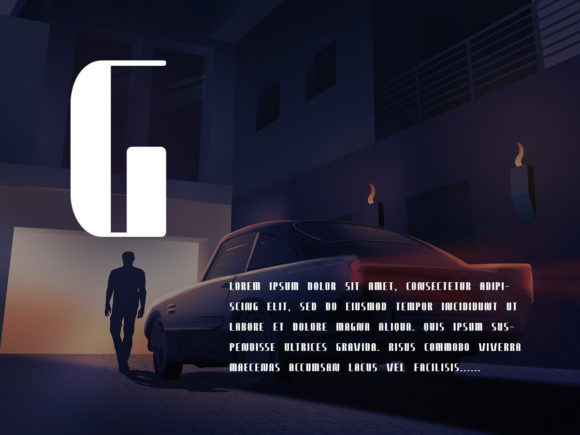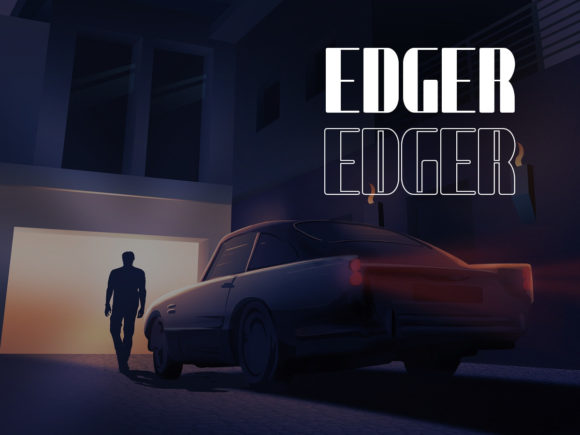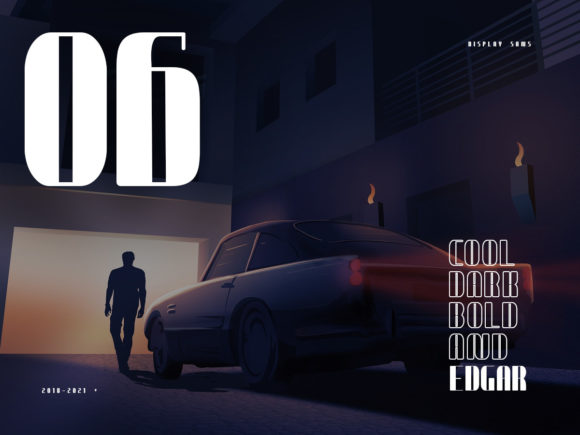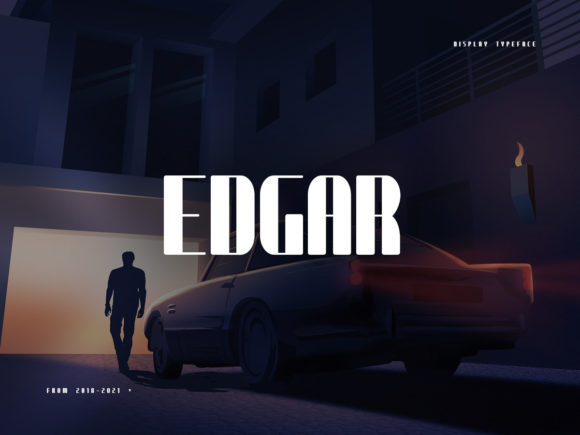
Introducing Edger Font: Elevate Your Creations with a Modern and Stylish Display Font
Are you a designer or crafter looking for a font that can take your creations to the next level? Look no further than Edger Font, a modern and stylish display font that’s perfect for making a statement. With its chunky and prominent letters, Edger Font is ready to elevate your designs and set them apart from the rest.
What is Edger Font?
Edger Font is a display font that’s designed to make a bold impression. Its chunky and prominent letters are perfect for creating eye-catching headlines, titles, and graphics. Whether you’re working on a logo, brochure, or social media post, Edger Font is the perfect choice for adding a touch of modern style and sophistication.
Key Features of Edger Font
- Chunky and Prominent Letters: Edger Font features chunky and prominent letters that are designed to grab attention.
- Modern and Stylish: With its sleek and contemporary design, Edger Font is perfect for creating modern and stylish graphics.
- High-Impact: Edger Font is designed to make a bold impression, making it perfect for creating high-impact headlines and titles.
- Versatile: Edger Font can be used for a wide range of design projects, from logos and brochures to social media posts and more.
Benefits of Using Edger Font
So why choose Edger Font for your design projects? Here are just a few benefits of using this amazing font:
- Adds a Touch of Modern Style: Edger Font adds a touch of modern style and sophistication to any design project.
- Grabs Attention: With its chunky and prominent letters, Edger Font is designed to grab attention and make a bold impression.
- Increases Readability: Edger Font is easy to read, even at large sizes, making it perfect for creating high-impact headlines and titles.
- Versatile: Edger Font can be used for a wide range of design projects, from logos and brochures to social media posts and more.
| Font Name | Edger Font |
| Author | Design Stag |
In conclusion, Edger Font is a modern and stylish display font that’s perfect for designers and crafters looking to elevate their creations. With its chunky and prominent letters, Edger Font is ready to take any design project to the highest levels. Whether you’re working on a logo, brochure, or social media post, Edger Font is the perfect choice for adding a touch of modern style and sophistication.